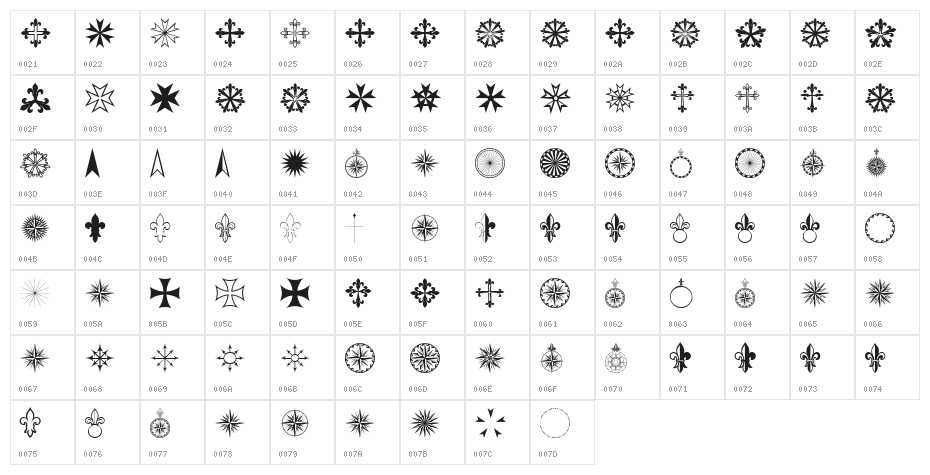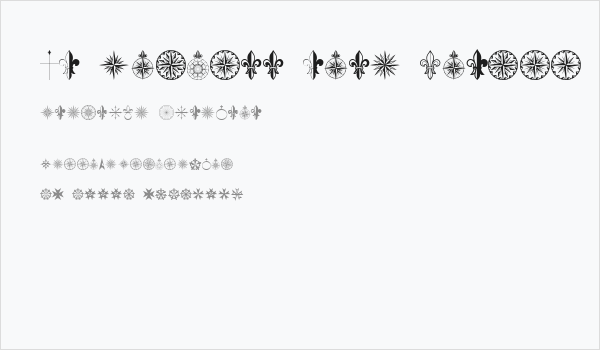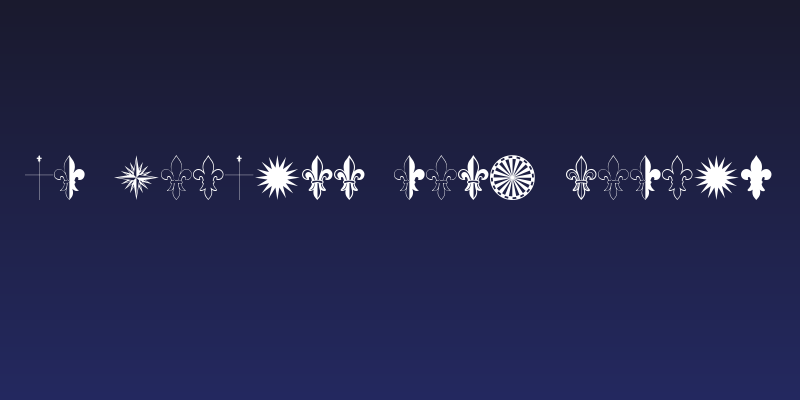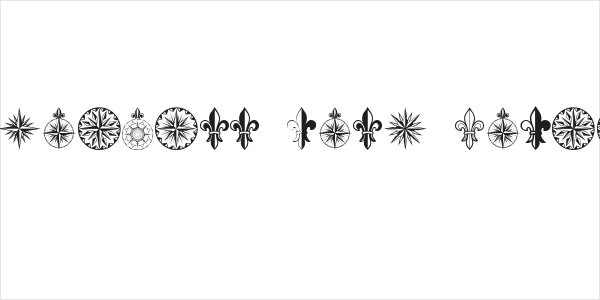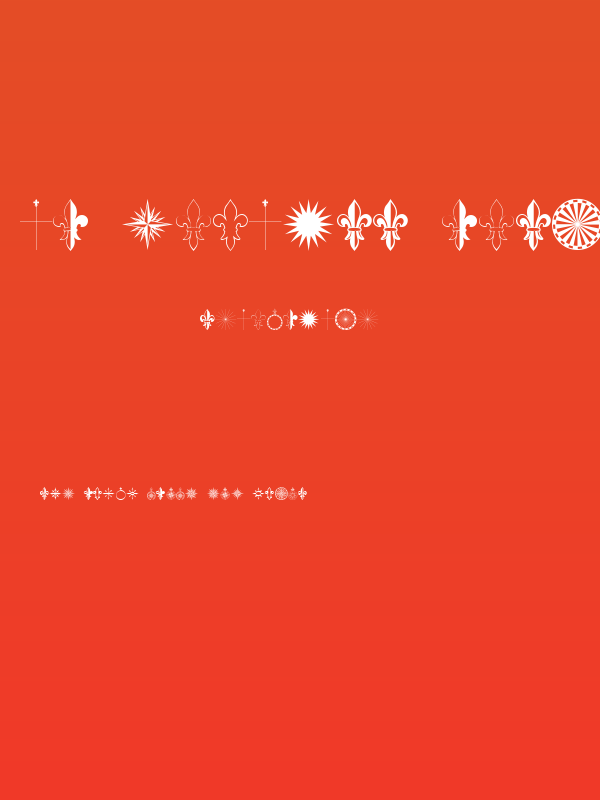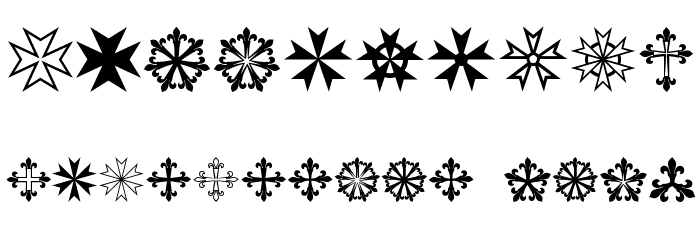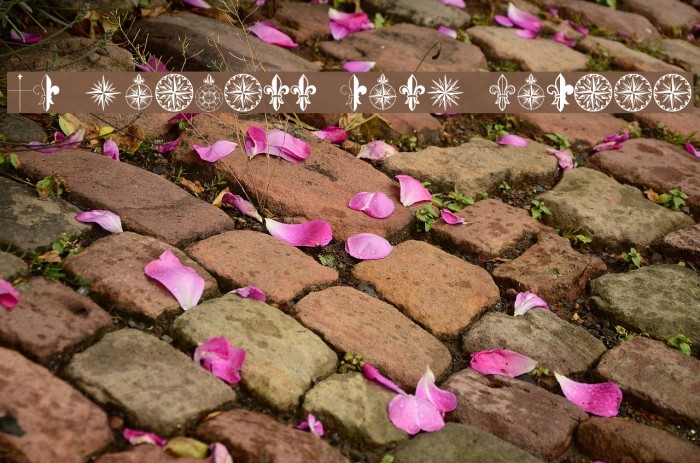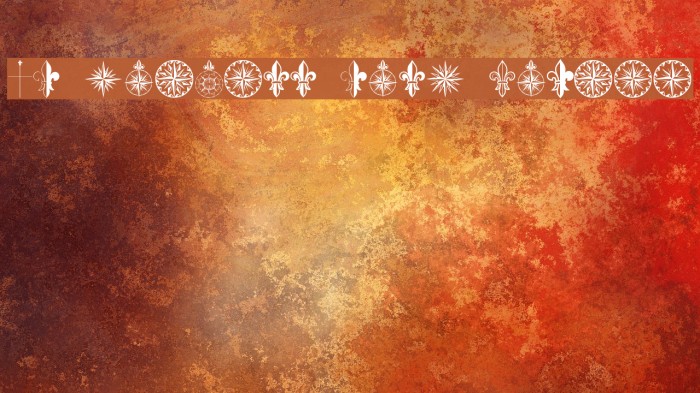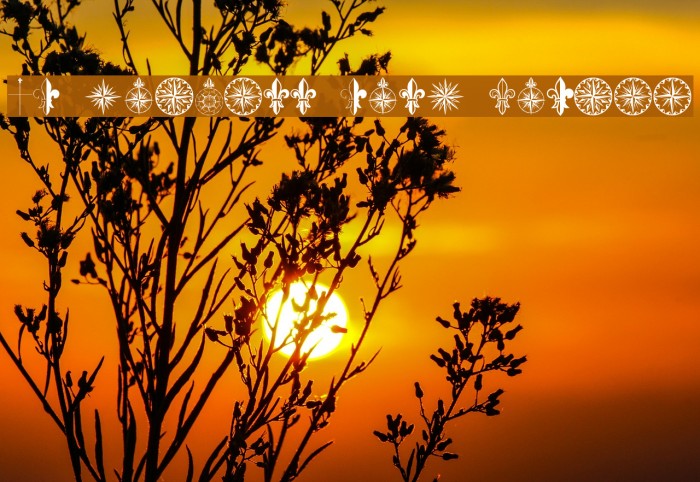
PR Compass Rose Normal Font
PR Compass Rose Normal Description
A decorative dingbat set featuring a variety of compass roses, fleur-de-lis, and starburst motifs in both filled and outlined styles. The glyphs are highly ornamental, with intricate line work and symmetrical designs, evoking nautical and heraldic themes.
| Overall Style | Decorative, Nautical, Heraldic |
| Use Case | Borders, embellishments, thematic graphics |
| Proposed Projects | Maps, invitations, certificates, nautical-themed designs, decorative borders, scrapbooking. |